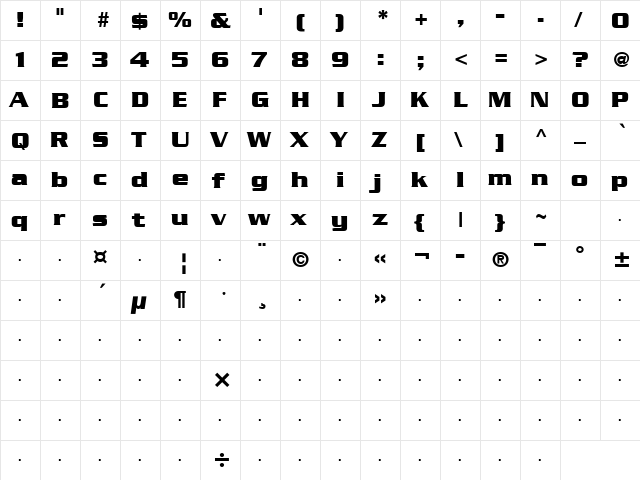
Enterprise Bold
Design Context for Enterprise Typeface
Enterprise offers clean, dependable letterforms without strong stylistic allegiance, making it a practical choice for designers who need flexibility. The heavy weight commands attention and anchors typographic hierarchies.